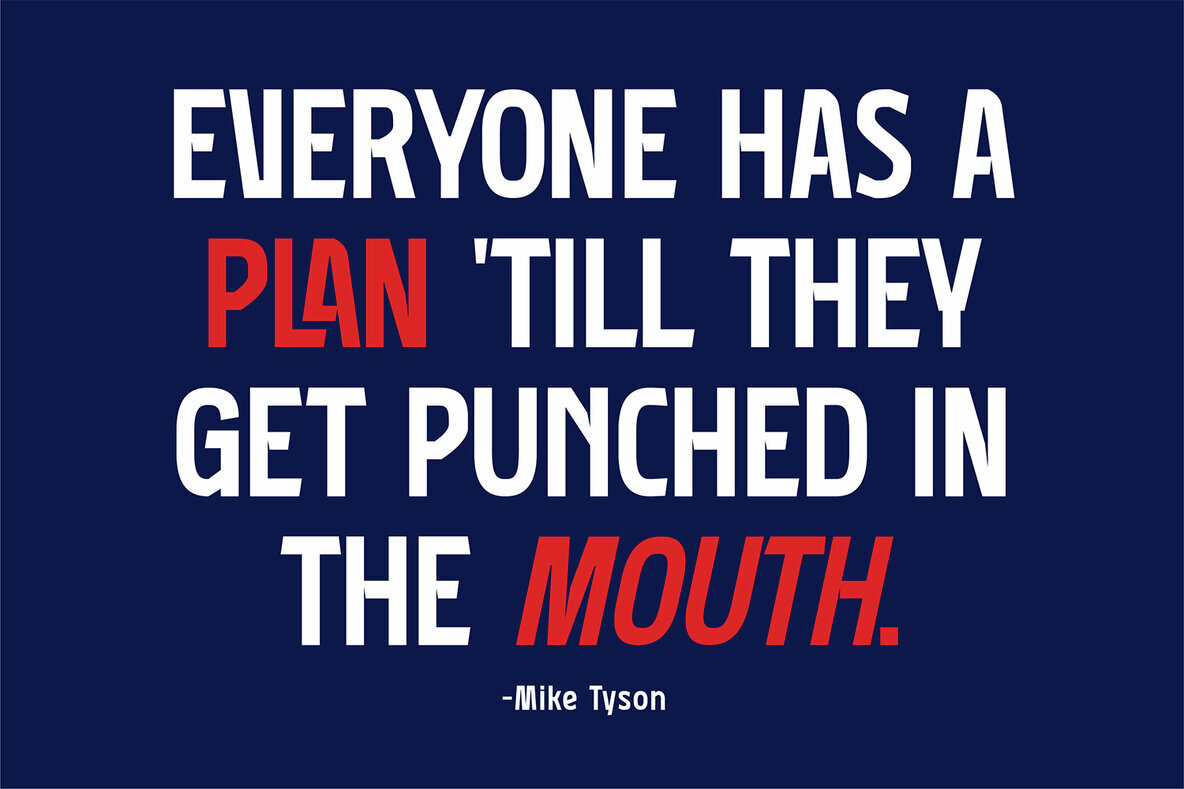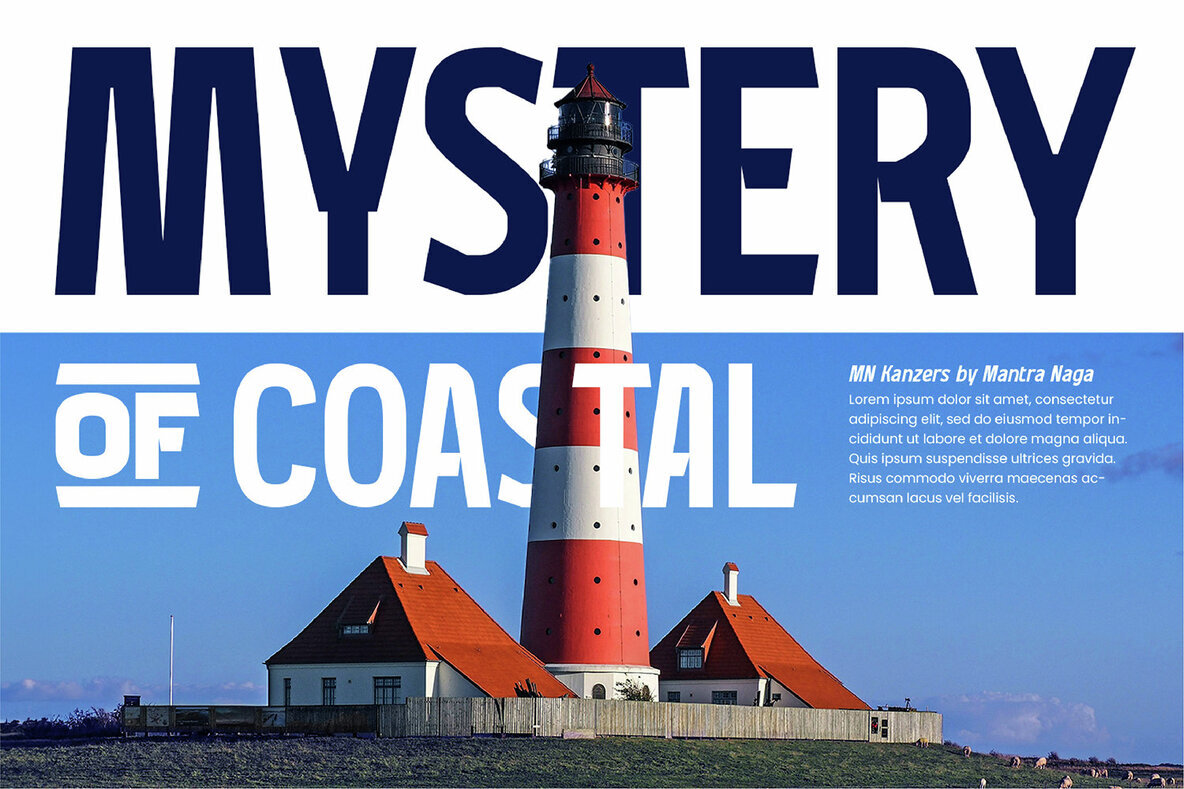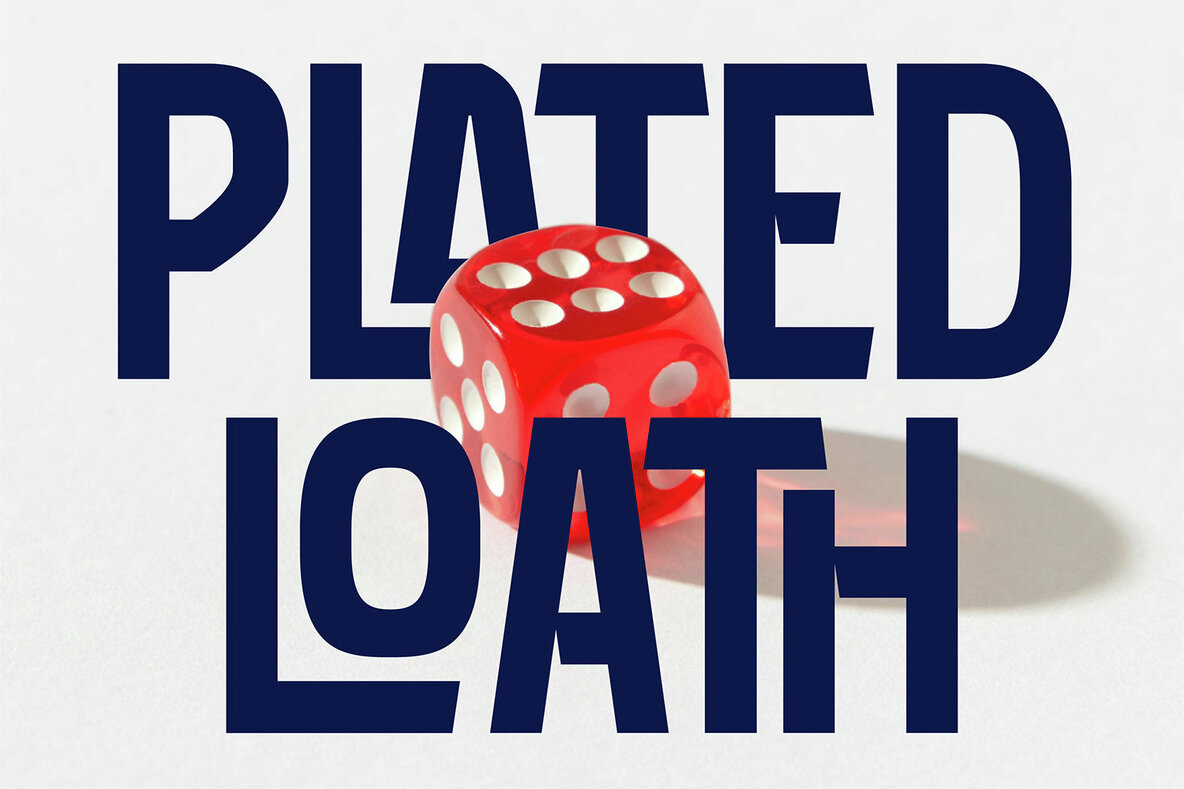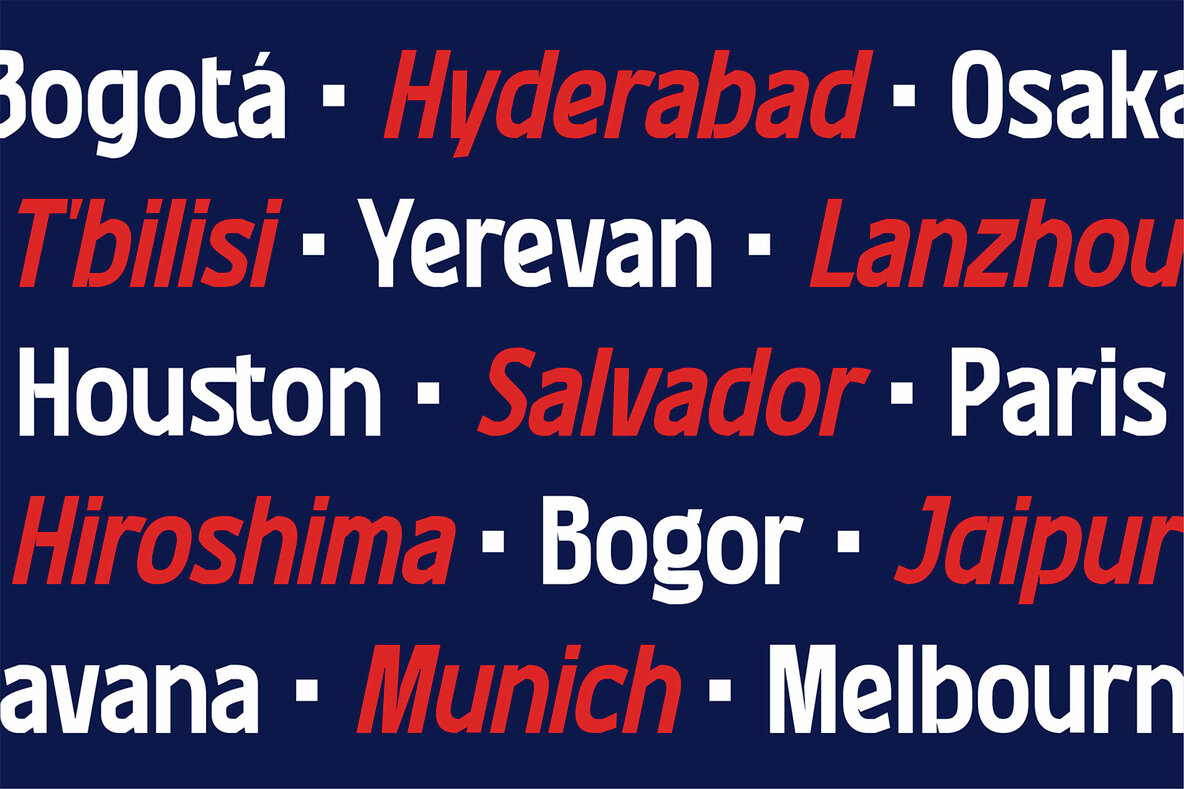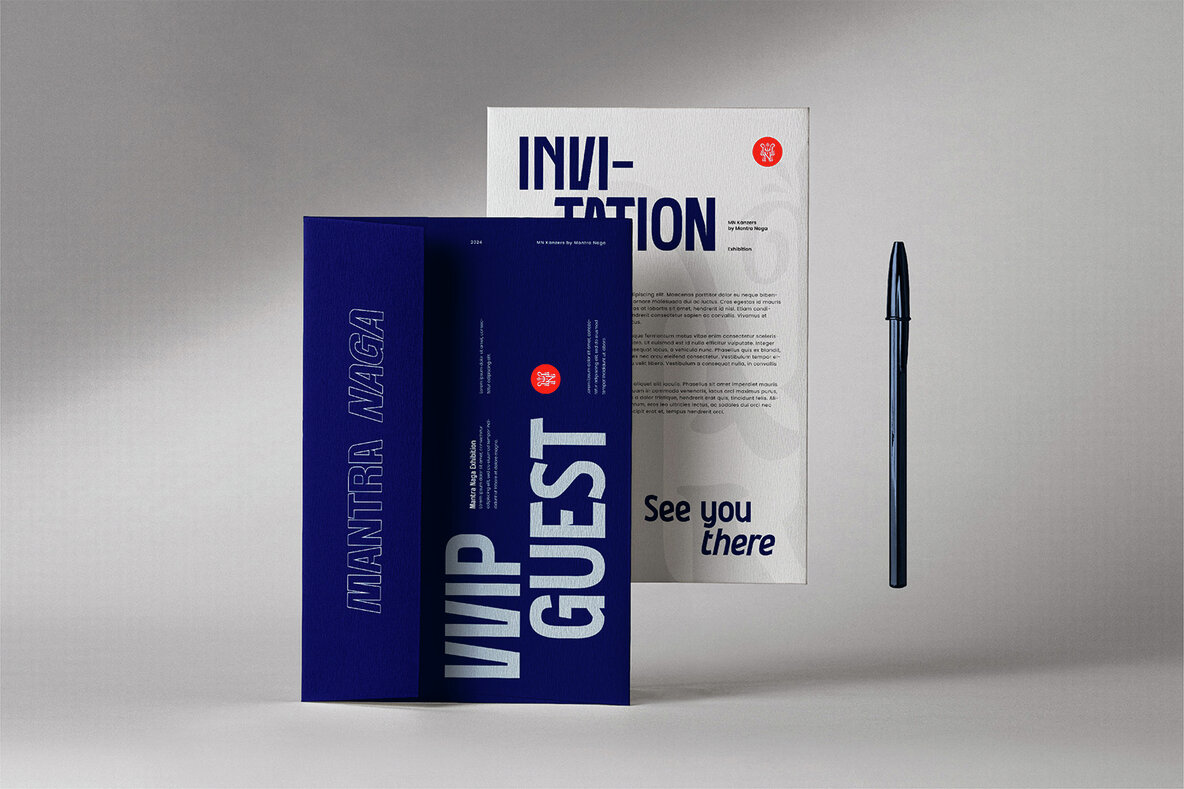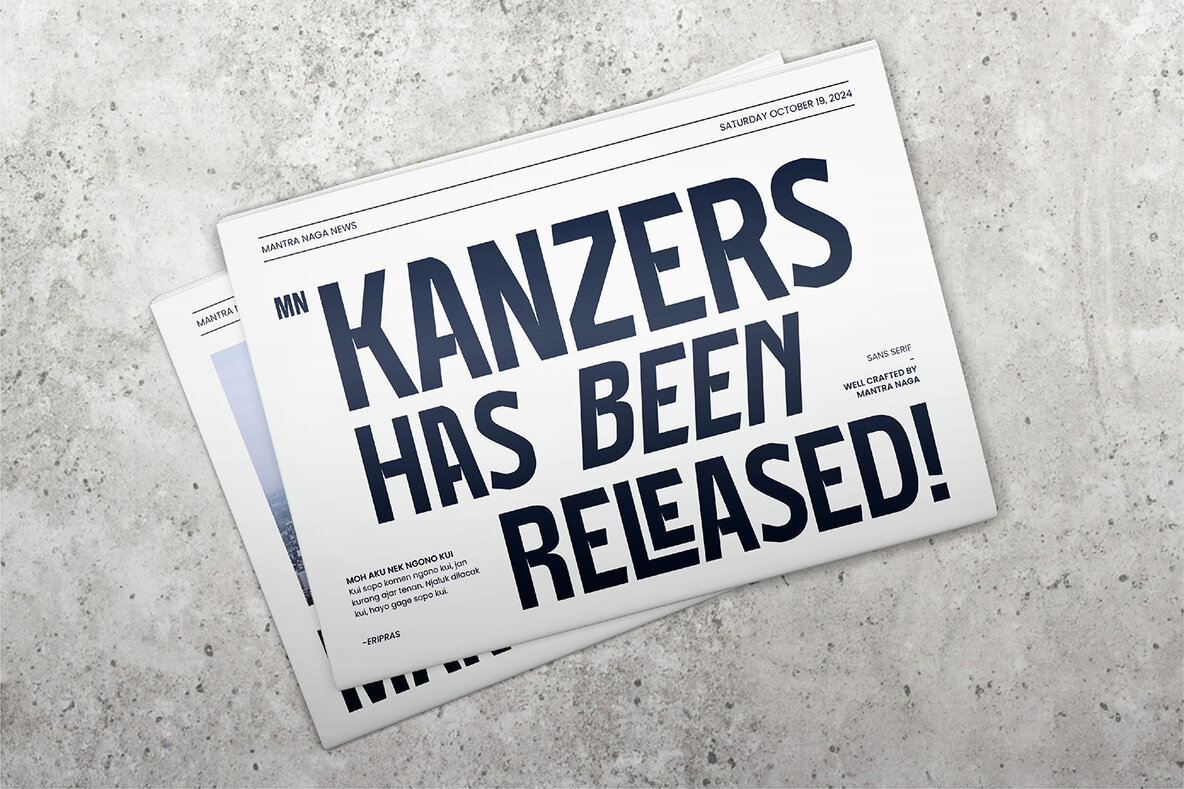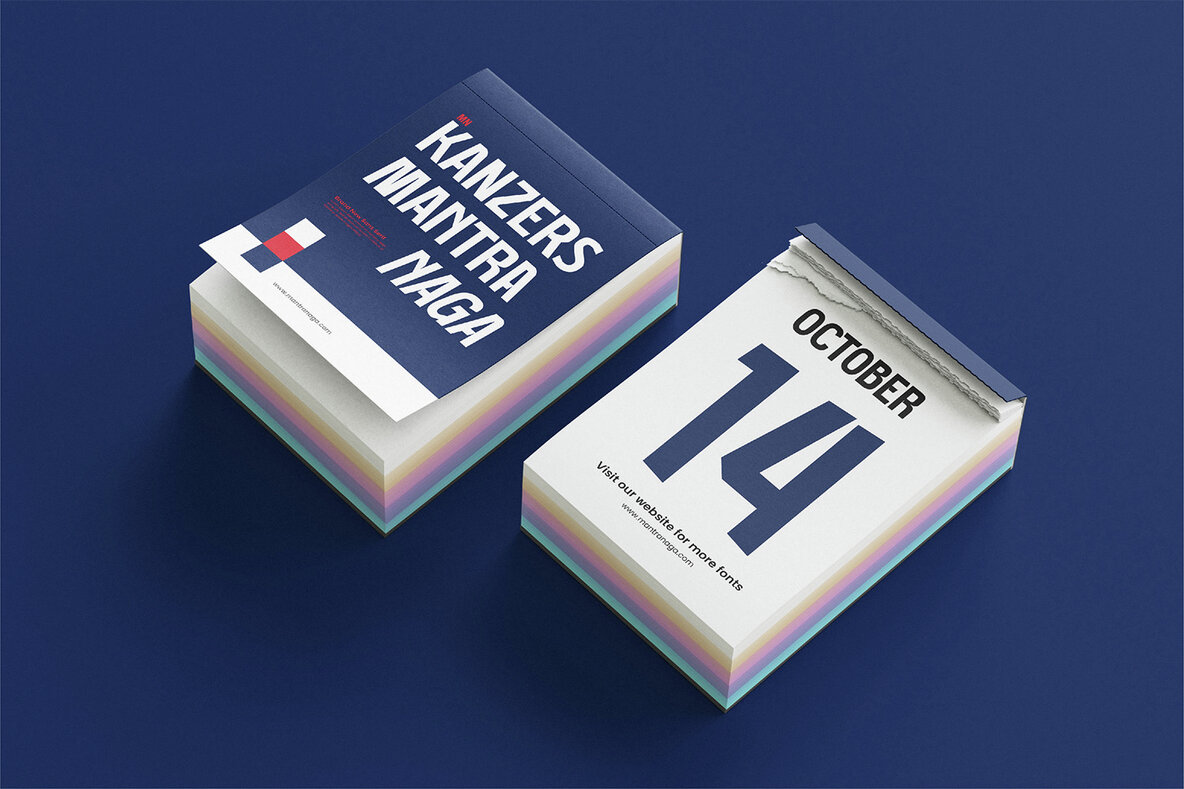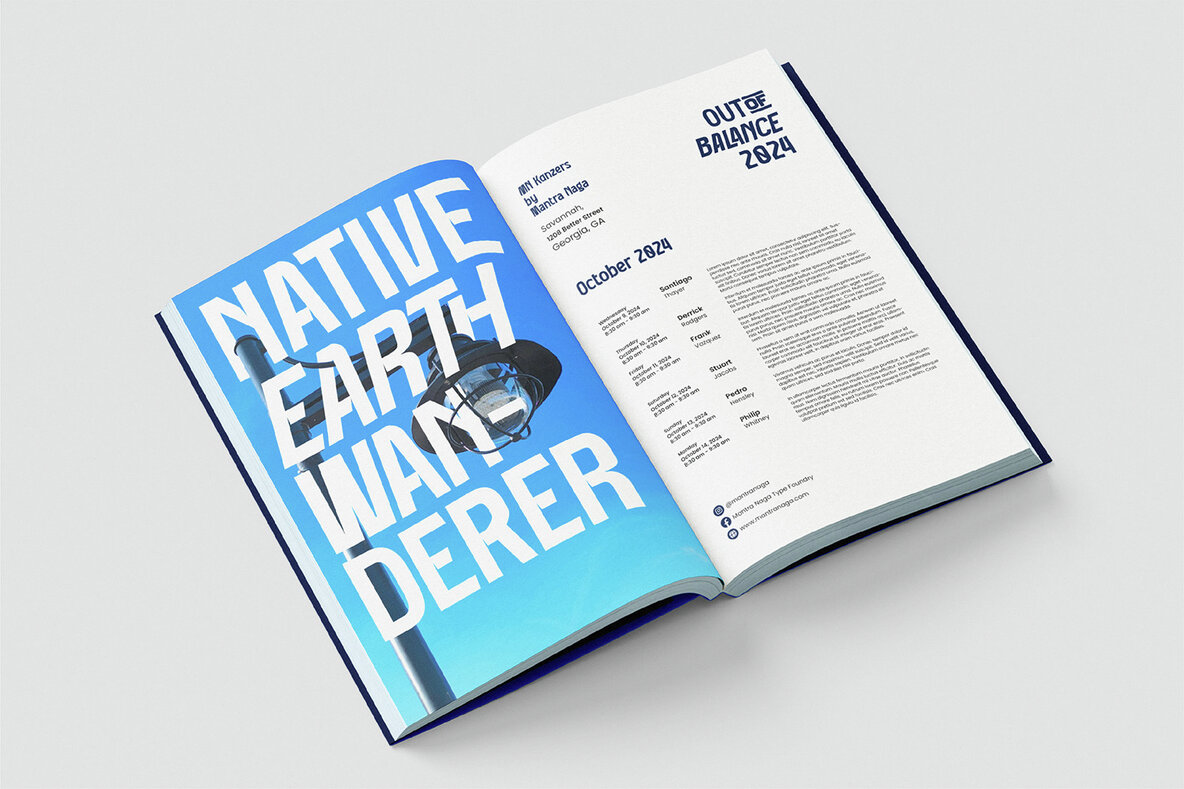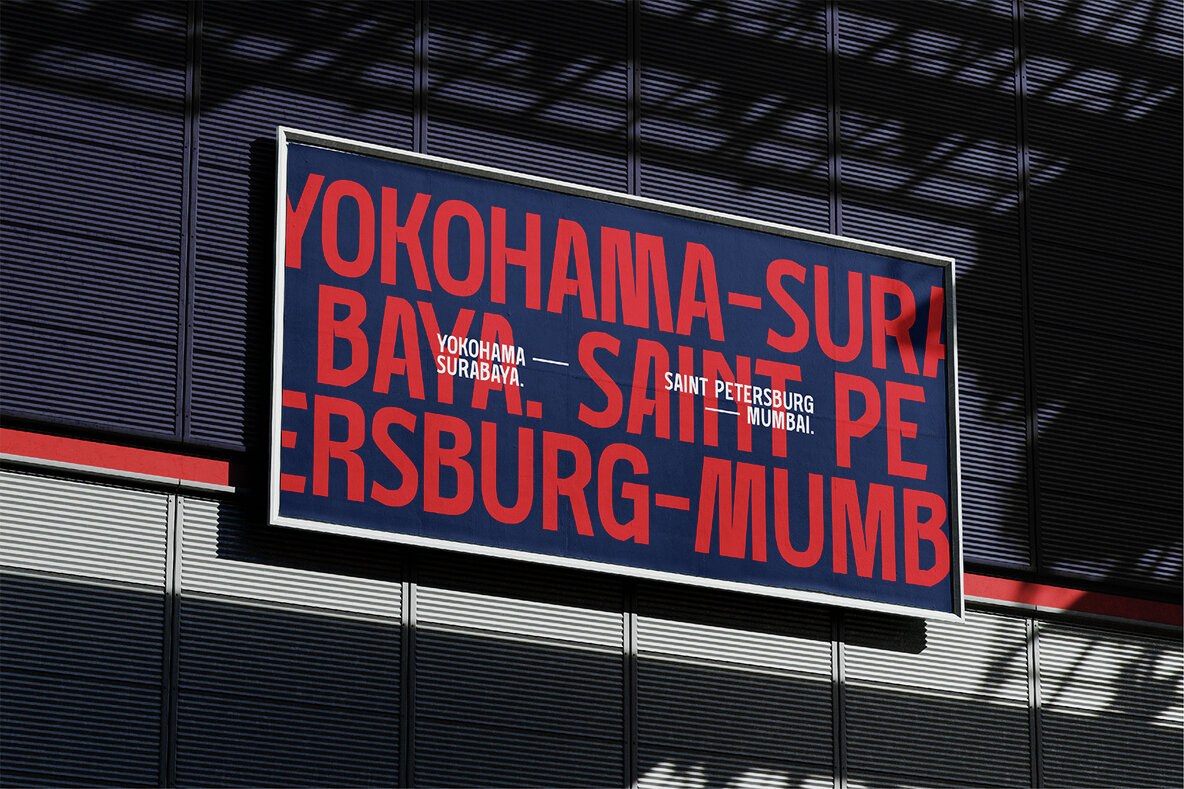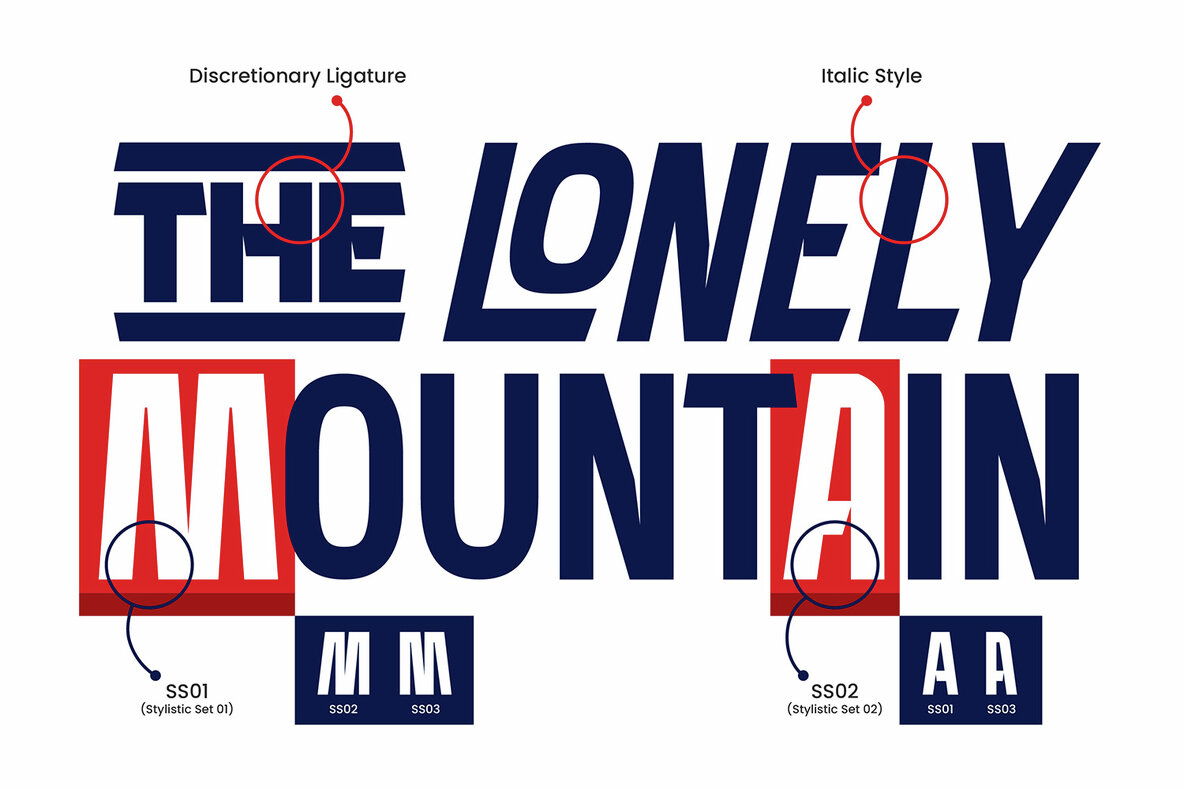
MN Kanzers Font
MN Kanzers offers a modern sans-serif design that seamlessly blends clean lines with distinctive, expertly crafted curves. The font is characterized by subtle inktraps that enhance both its functionality and aesthetic appeal. It serves as a versatile option, making it suitable for numerous design applications. From brand identity and striking poster designs to headlines and digital displays, MN Kanzers delivers a contemporary yet enduring look that ensures readability and visual appeal.
Supporting 94 languages, this typeface is particularly effective for editorial headlines, branding, and web design projects. MN Kanzers provides an extensive set of OpenType features, including 444 glyphs, 7 standard ligatures, 16 discretionary ligatures, 4 stylistic sets, and fractions. Its combination of professional elegance and unique character makes it a perfect choice for projects that require both sophistication and versatility.